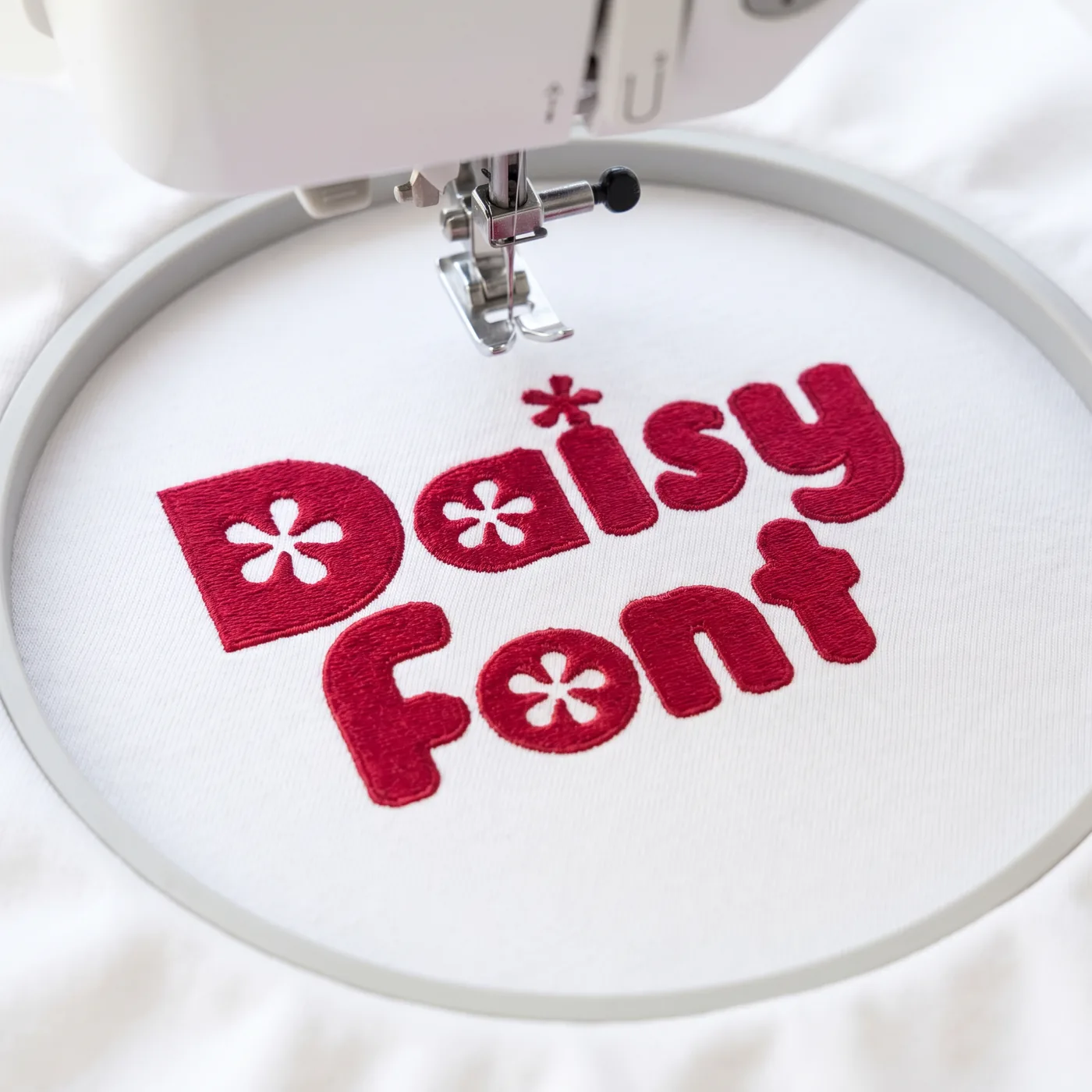
Daisy Font Embroidery Design
Daisy Font Embroidery Design, a botanical motif that looks its best on linen, cotton and light fabrics.
Floral fills catch the light: turn the hoop so the petal stitching runs across the light rather than along it.